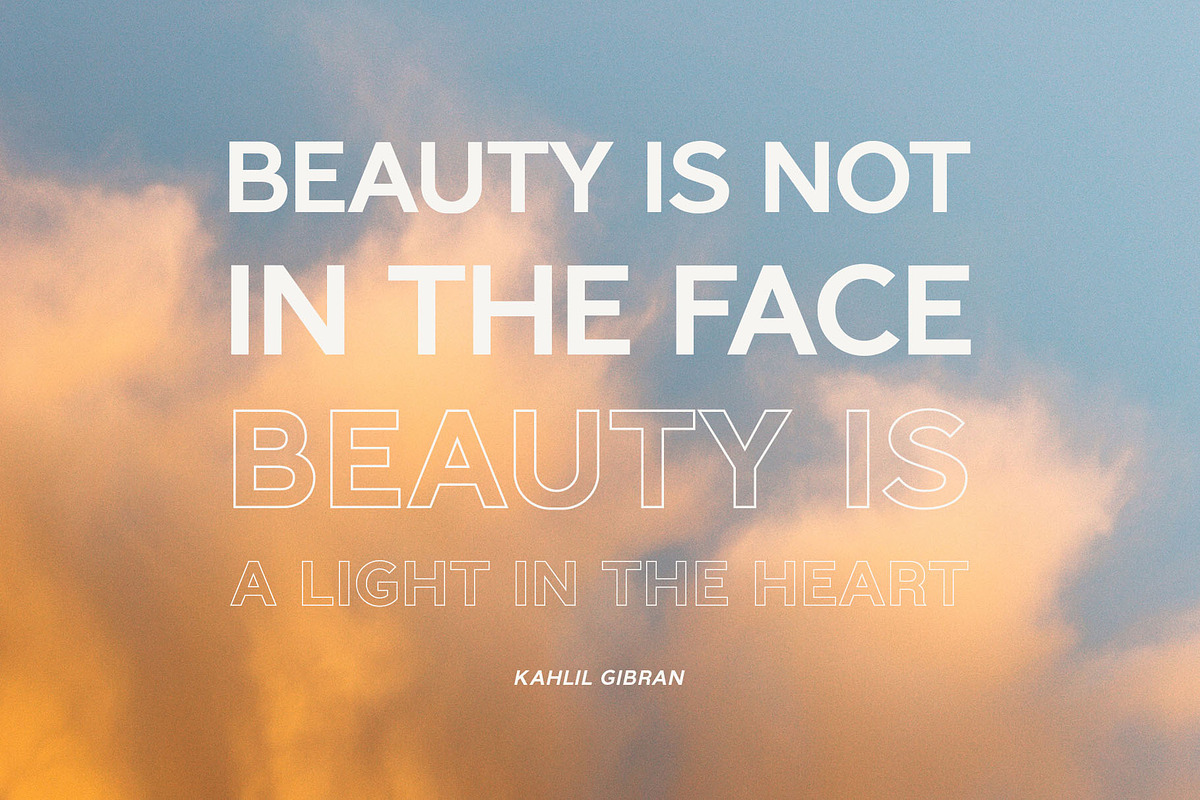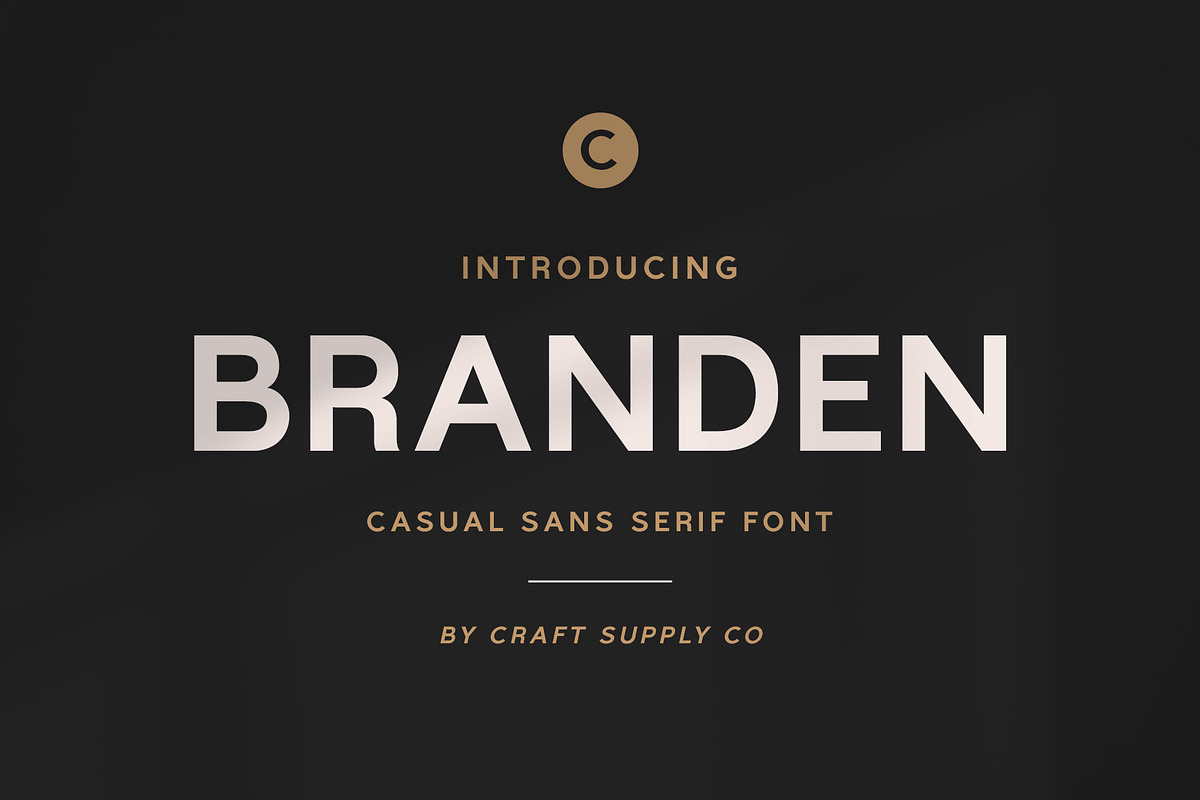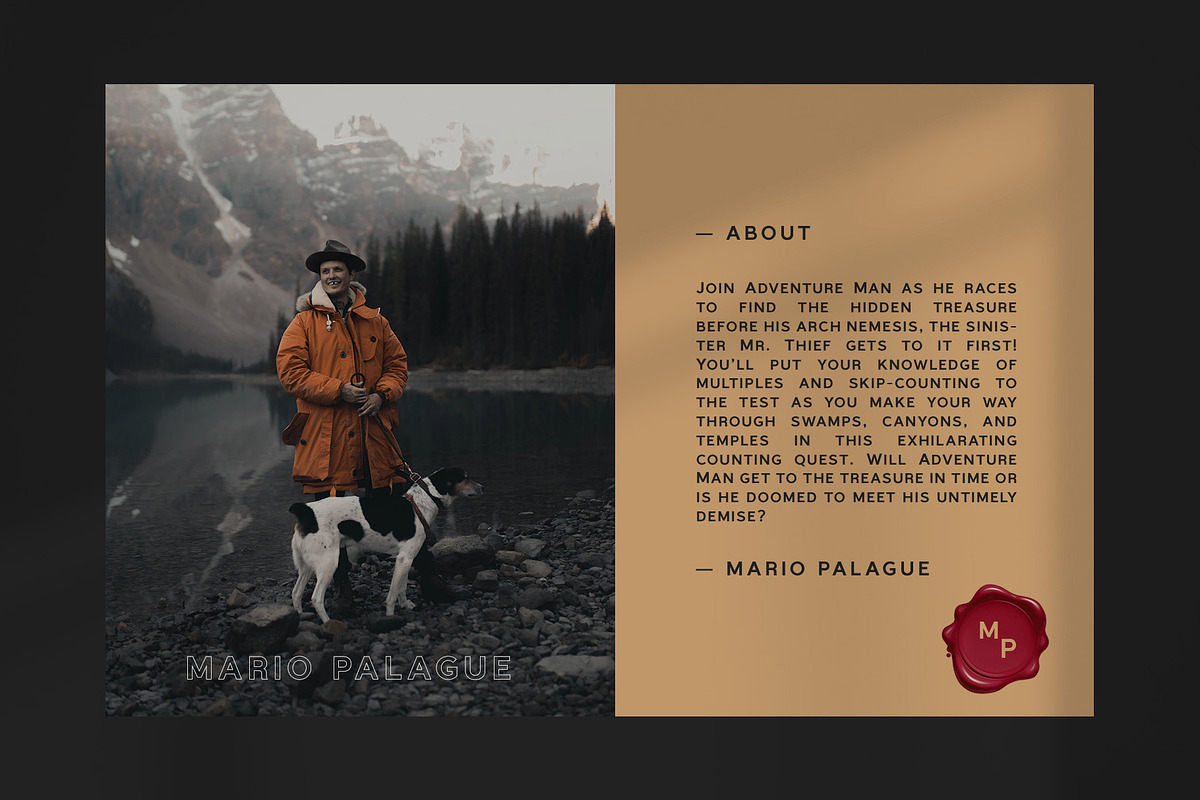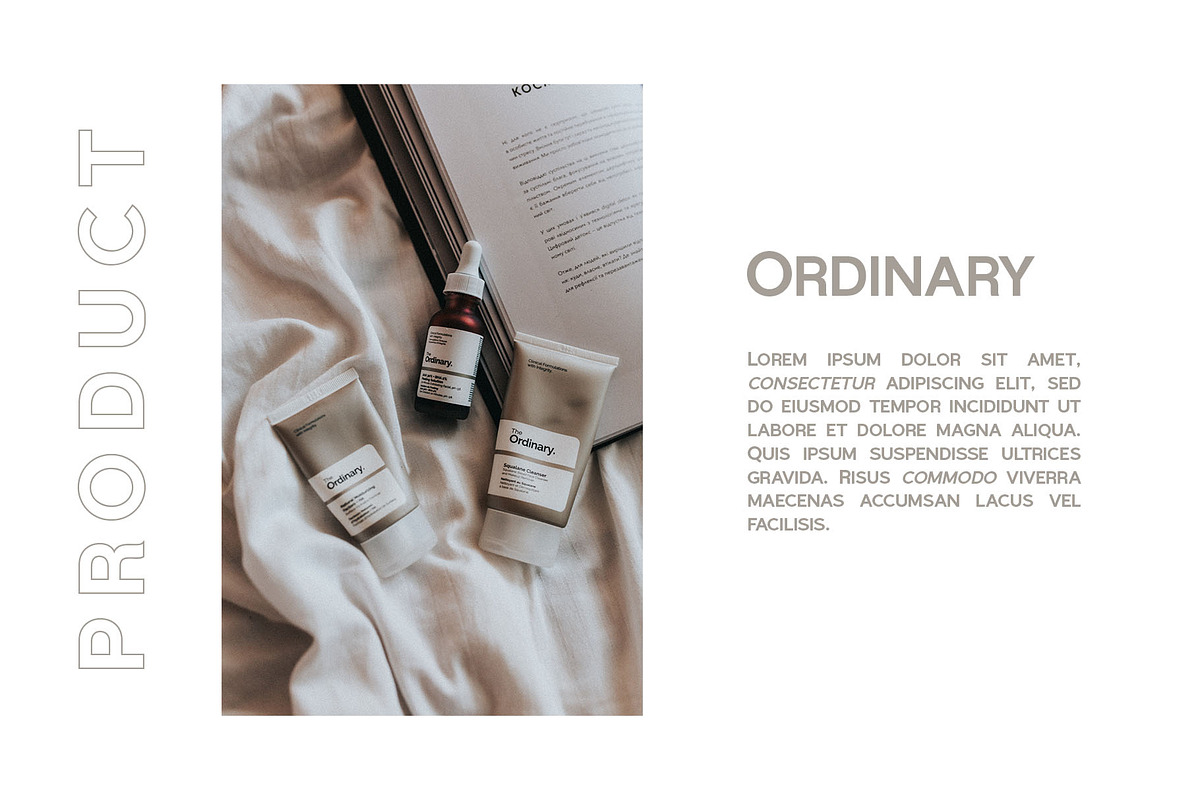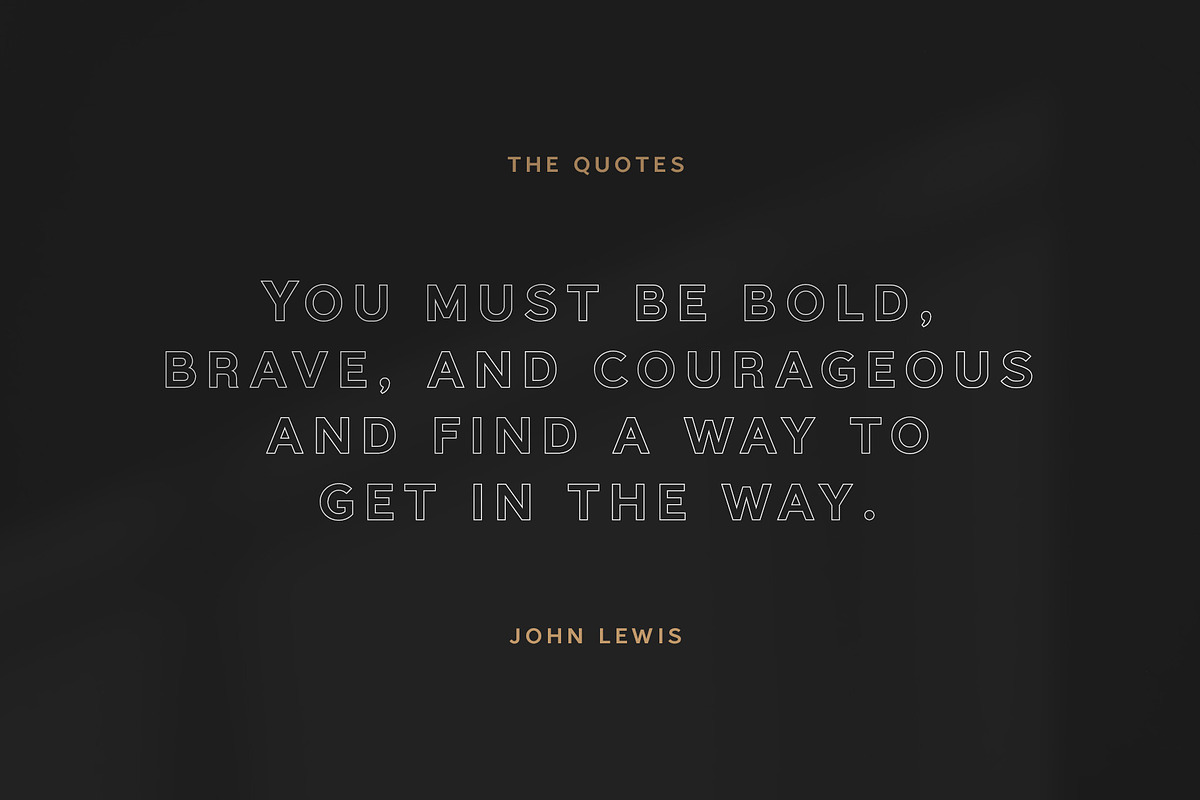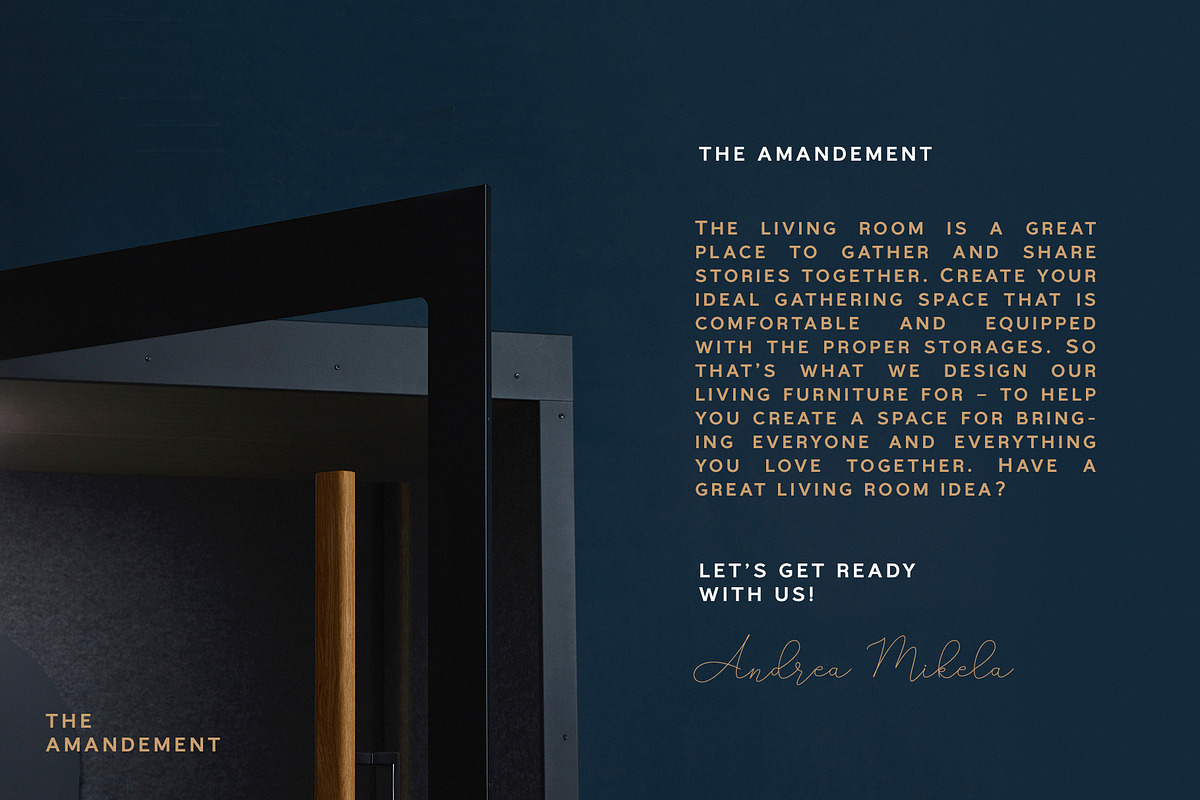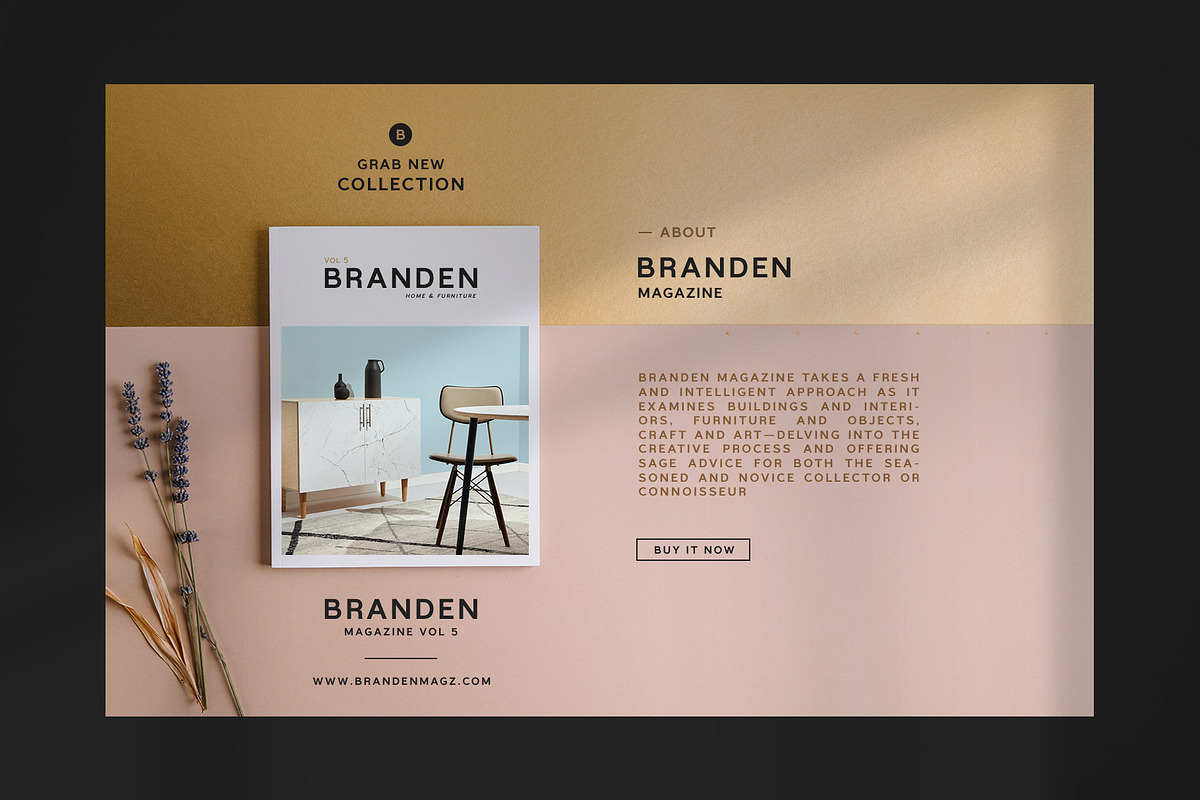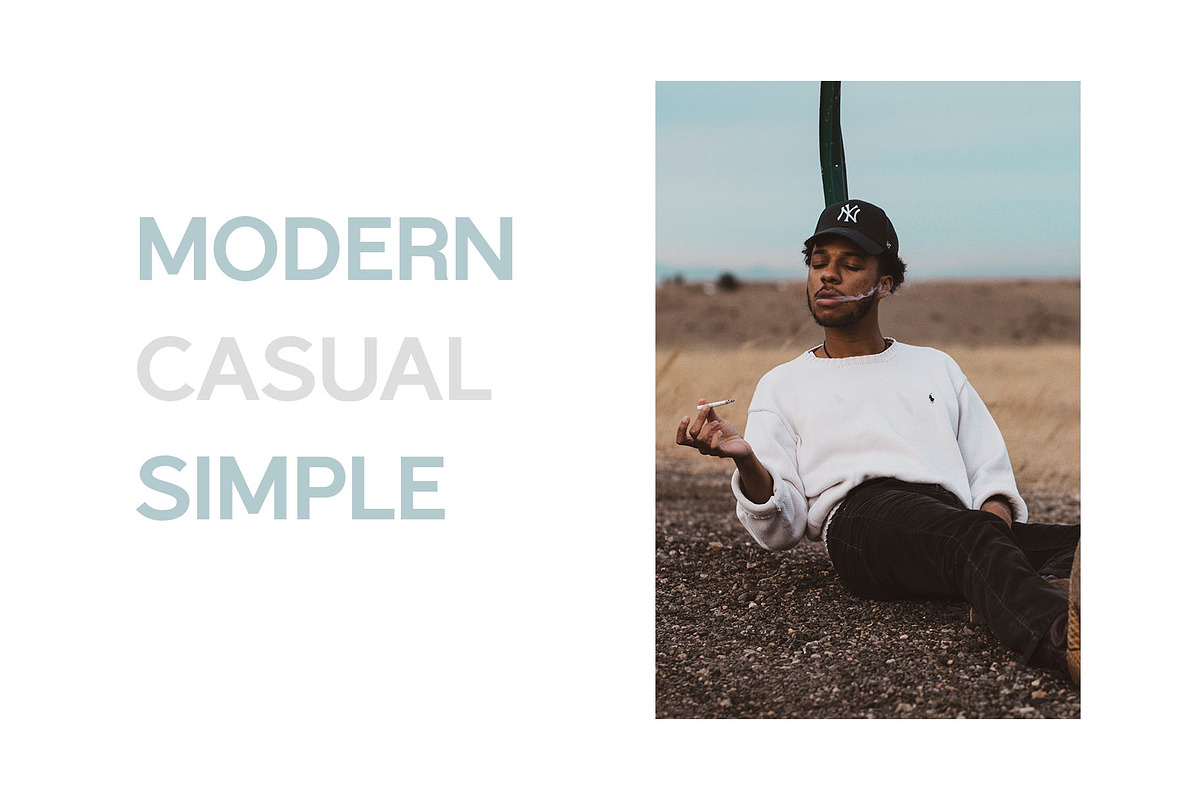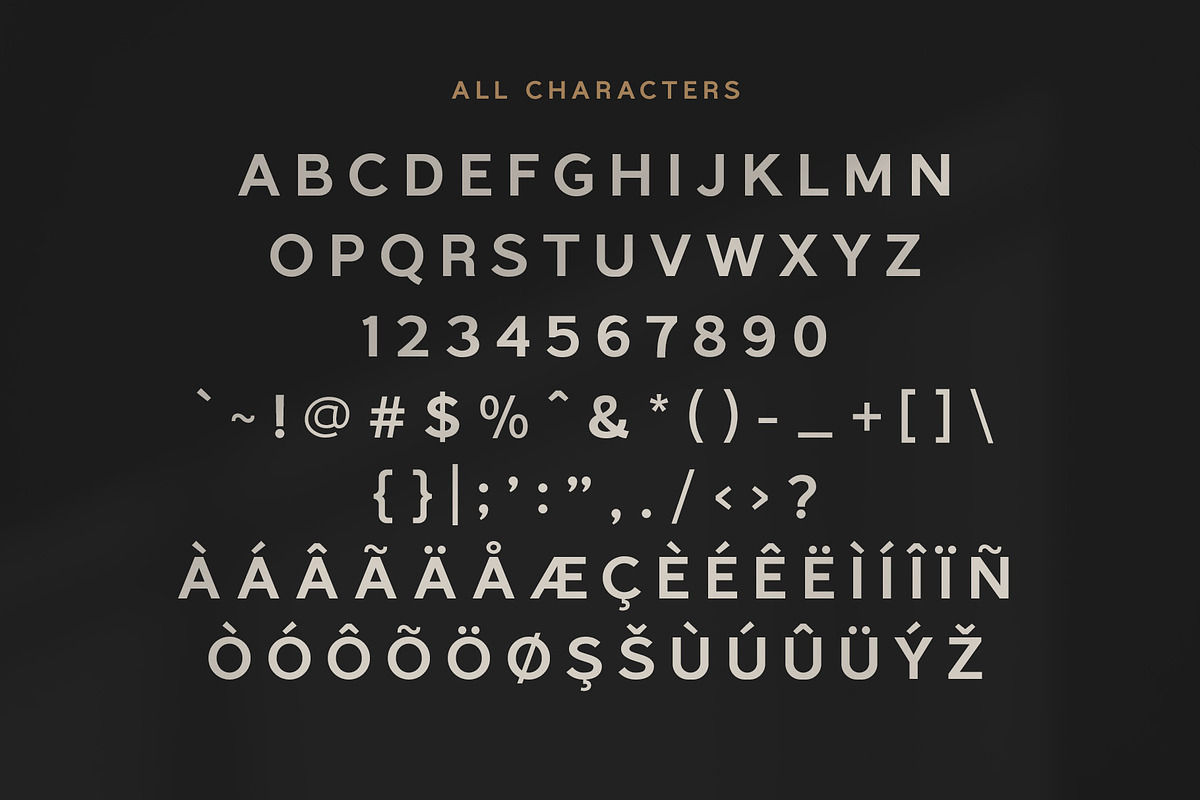
Branden - Casual Sans Serif Font
Introducing New Font : Branden - Casual Sans Serif Font
Branden - Casual Sans Serif Font is a modern sans serif font family whose design refers us to the style of casual sans serif. The distinctive features of Branden - Casual Sans Serif Font are the relatively low contrast of strokes, the slightly squarish shapes of round characters and the emphasized business like simplicity.
Branden - Casual Sans Serif Font features an original stylistic set which, when turned on, adds features of typical pointed-pen sans serif to some of the lowercase characters. In addition, Branden - Casual Sans Serif Font has small capitals for Latin and as well as several interesting ligatures.
Branden - Casual Sans Serif Font has been crafted from scratch with a structural logic of its own: a fusion of pure geometry and optical balance. By combining a variety of styles Branden - Casual Sans Serif Font is suitable for Logo, greeting cards, quotes, posters, branding, name card, stationary, design title, blog header, art quote, typography
Branden - Casual Sans Serif Font also suitable for art, modern envelope lettering or book design, happening style like handdrawn design or watercolor design theme, craft design, any DIY project, book title, wedding font, pop vintage design, or any purpose to make our art/design project look pretty and trendy.